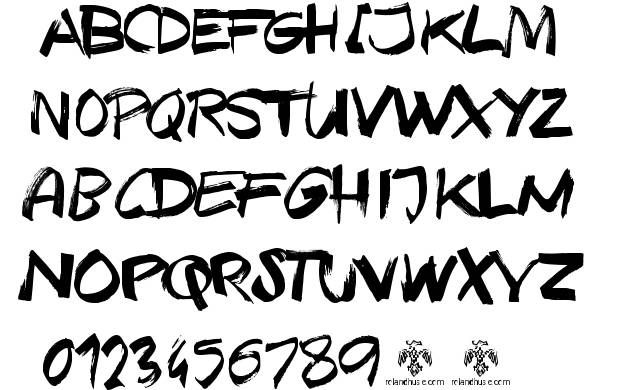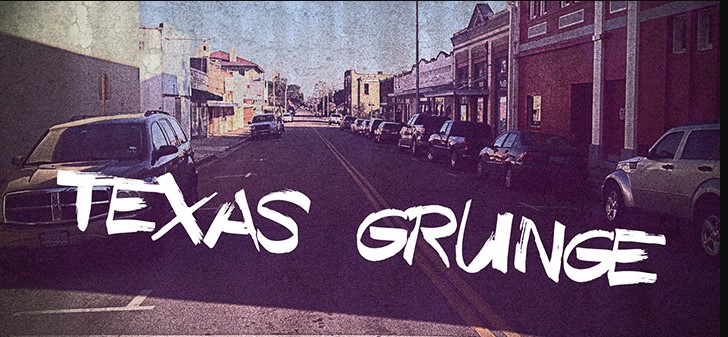
Texas Grunge Font
Texas Grunge Font is extensively well-known with the name of the athletic typeface. This typeface is widely utilized in Logo designing and mug printing. The italic typeface that looks like selfie font begins offevolved with a massive element set assisting the peak of the communications, small caps, pictograms, and bolts. Along the lines of the nice, its a ramification of a specific authority and they may be the usage of it in assignment one-of-a-type from their layout.
It has a gift-day calligraphy aesthetic this is extensively present day-day-day. It similarly much like the font however it has pinnacle-notch typeface and tendencies. Download The woodlands were created to offer designers a free possibility in the manner to help you collect that lettering take shipping of as real with all of us’s love. It’s miles a model of a similarly historic clean.